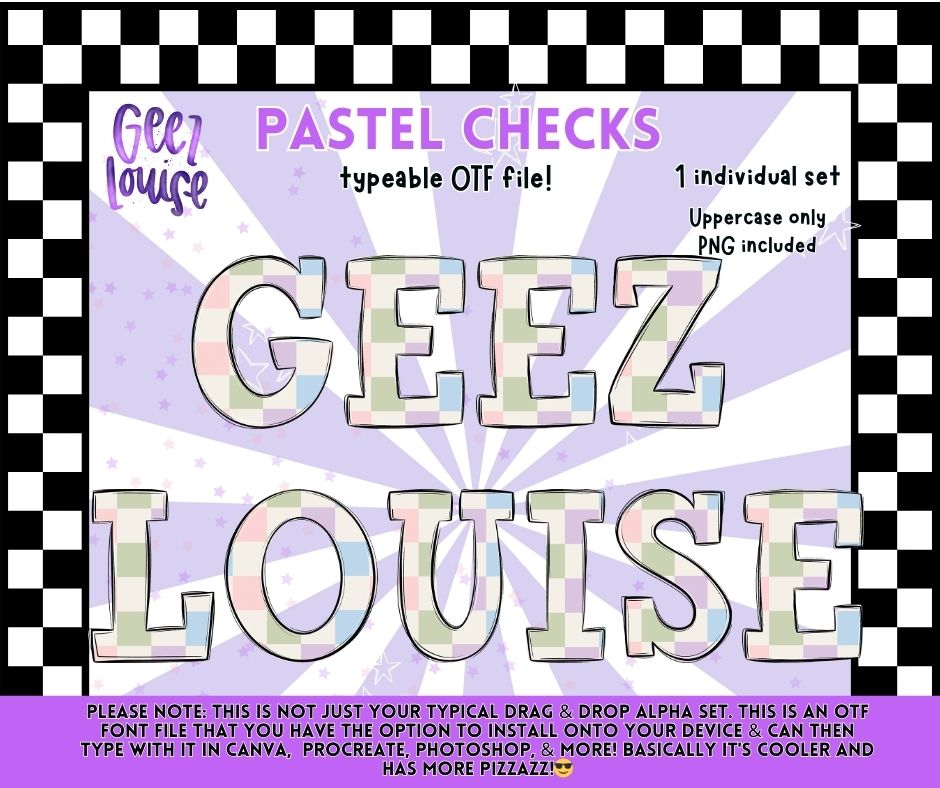
Pastel Checks OTF Font | Uppercase Typeface + PNG | Soft Checkered Alphabet
Meet Pastel Checks — a soft, checkered alphabet with dreamy pastel tones and a clean, modern look 🎨
• Uppercase letters only
✔️ Soft colors with a polished, professional finish